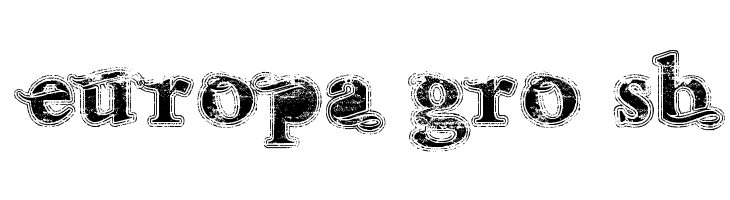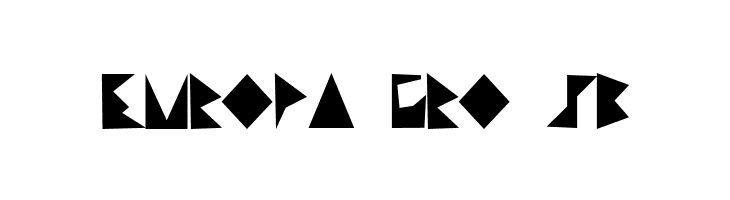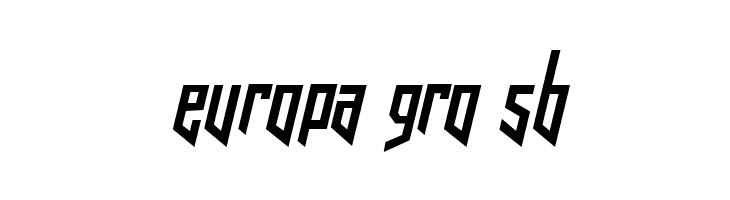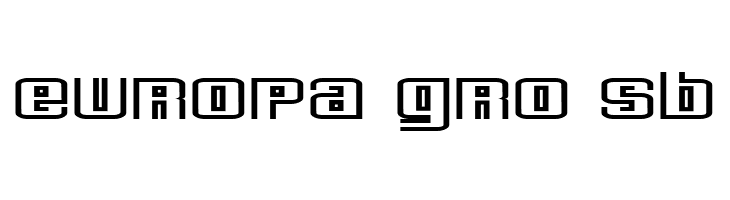
A bold, italic, hand-drawn font with a playful and dynamic style.
An ornate, decorative font with intricate detailing and a vintage flair.
An ornate, vintage-style font with intricate flourishes and bold strokes.
A bold, angular font with a futuristic and dynamic slant.
A bold, angular font with a futuristic and geometric design.
A bold, geometric font with a futuristic double-line style.